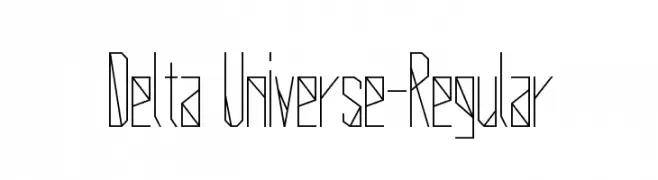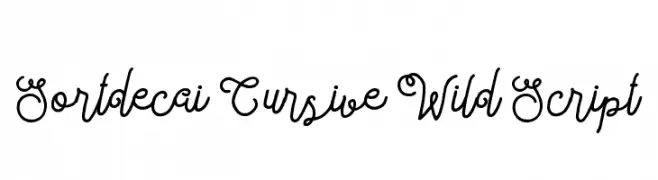
( Fonts by Didik Pratikno )
A bold, decorative font with intricate floral patterns within each character.
( Fonts by greenegg )
A geometric and angular font with a modern, futuristic style.
( Fonts by Maelle.K - Thomas Boucherie )
A whimsical, hand-drawn font with playful curves and artistic flair.
( Fonts by Darcy Baldwin {fontography} )
A playful, eclectic font with a mix of bold, outlined, and decorative characters.
( Fonts by Bleakerst )
A whimsical cursive font with playful loops and swirls.
A playful, hand-drawn font with a sketch-like appearance.
A bold, expressive brush script with dynamic strokes and a textured, handcrafted appearance.
A modern, decorative font with geometric shapes and bold, artistic elements.
( Fonts by Jovanny Lemonad )
A decorative font featuring intricate insect-themed designs within each character.
A distressed, textured cursive font with a dynamic, handwritten appearance.